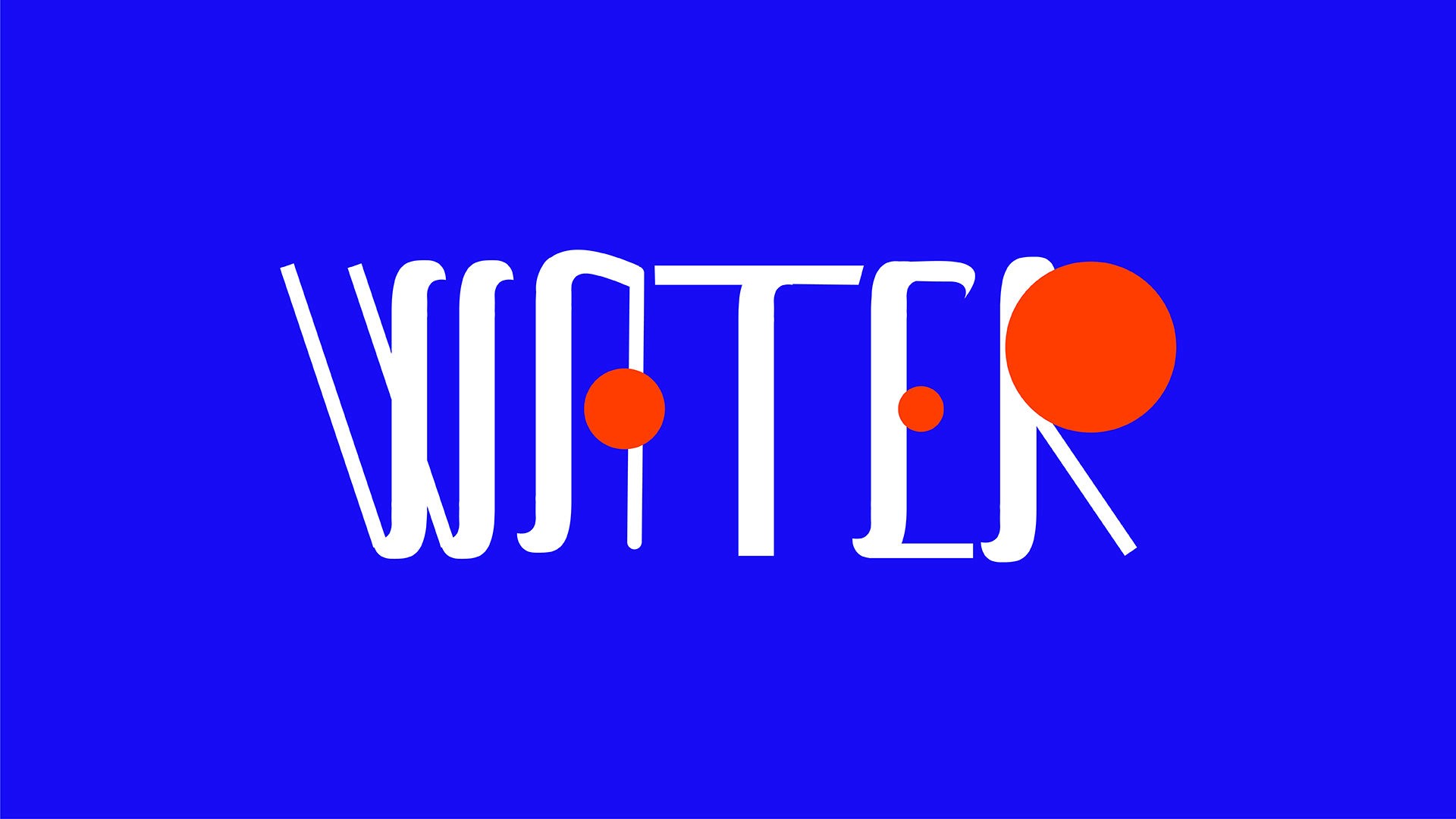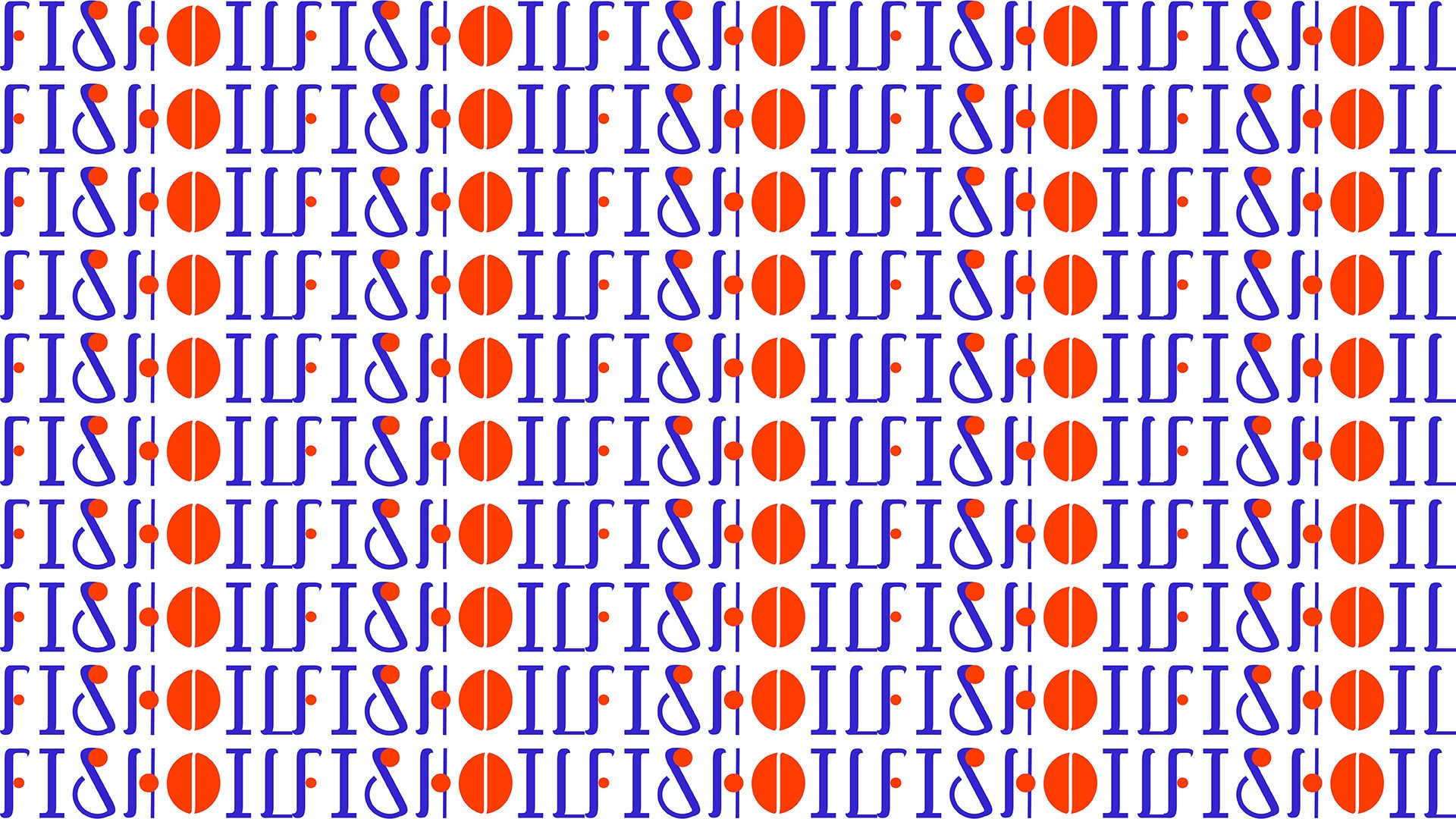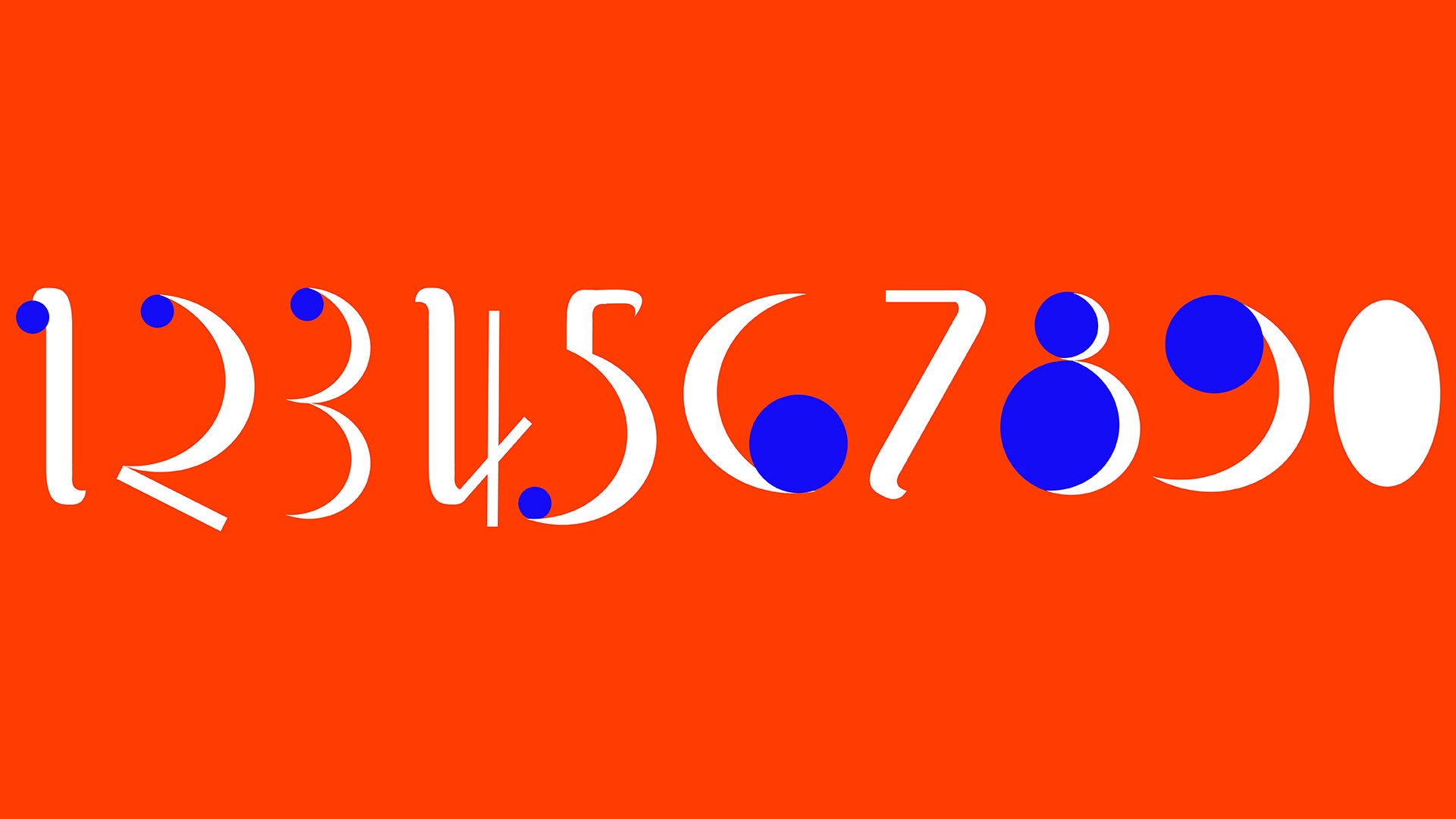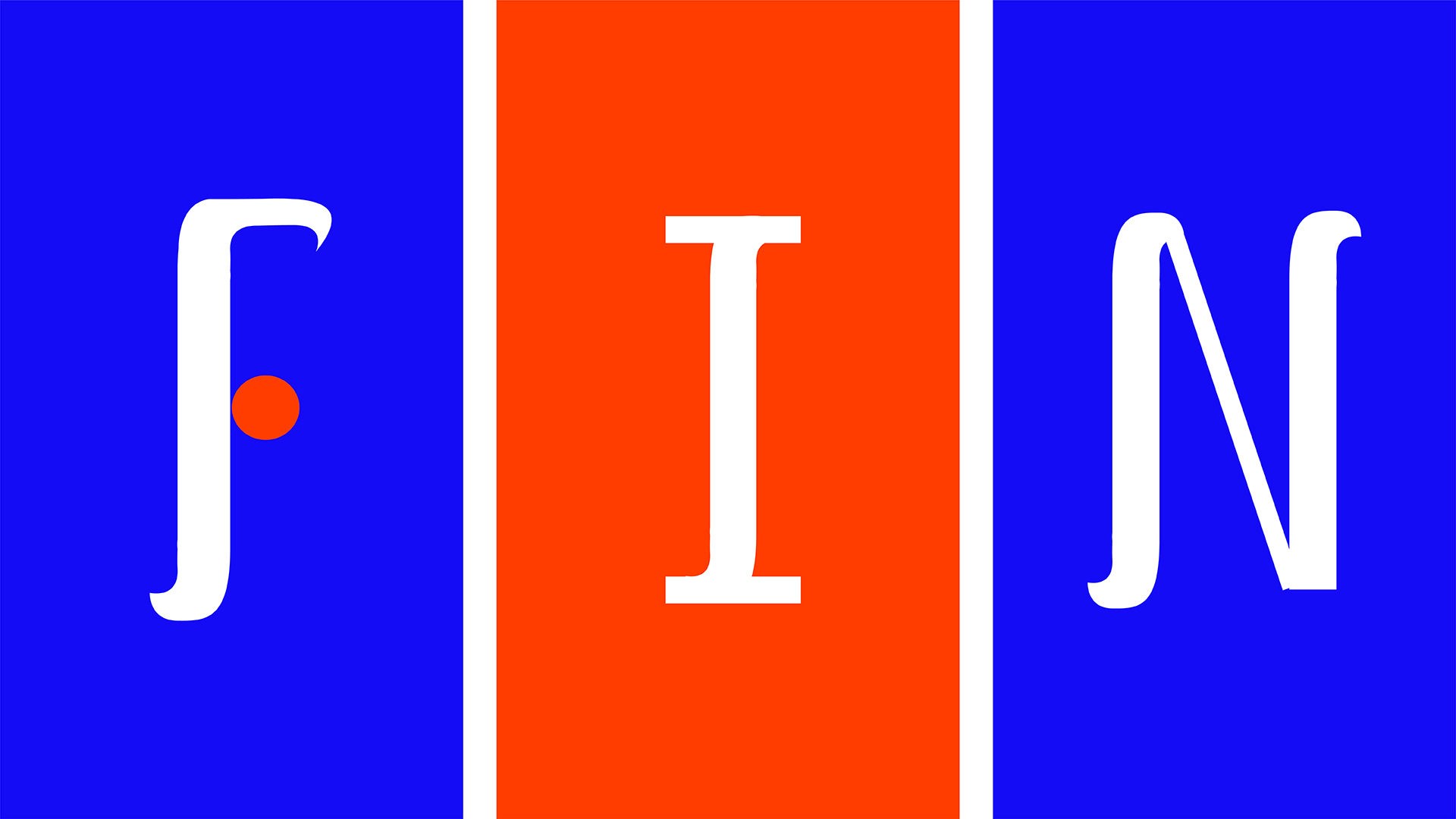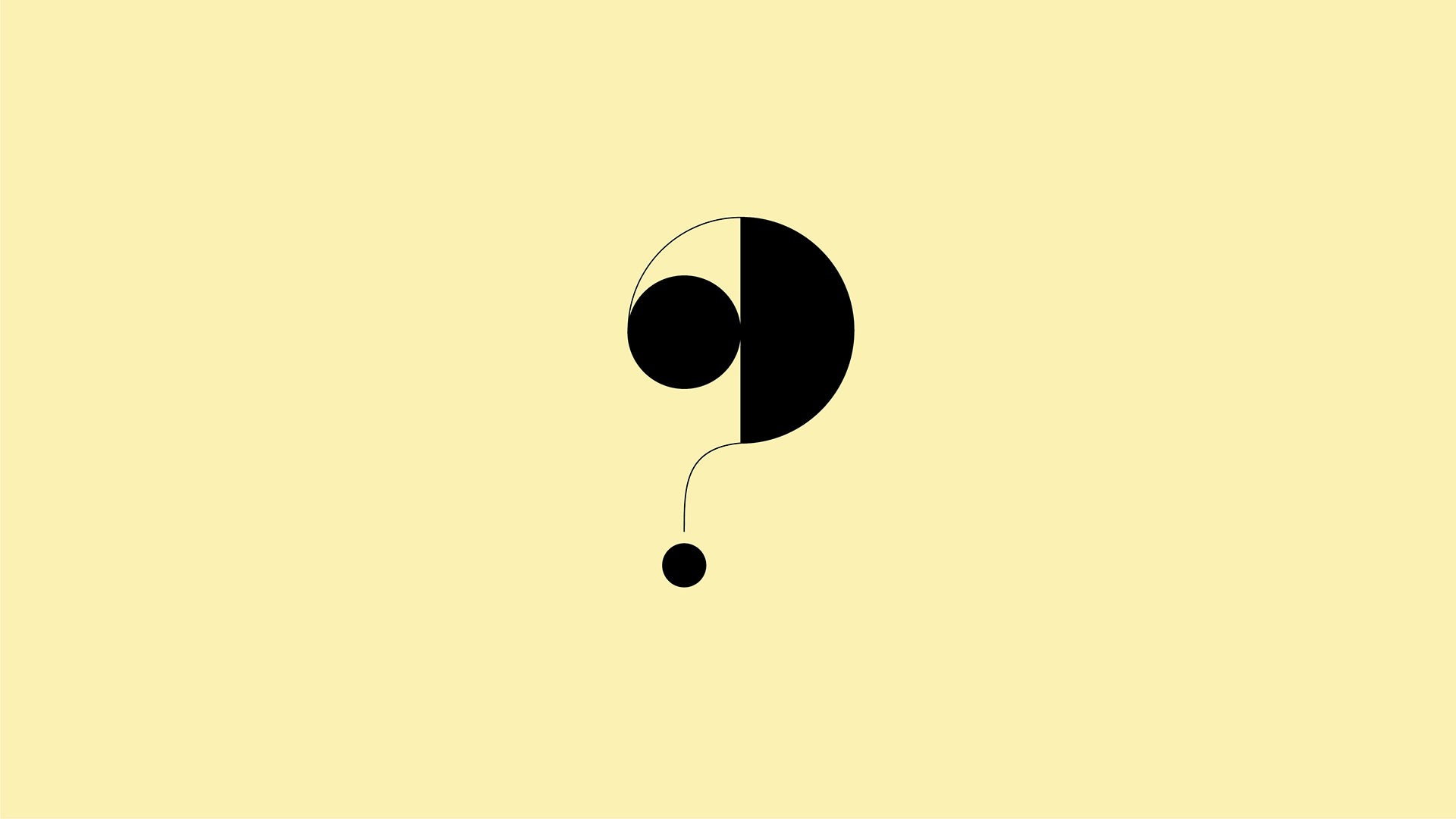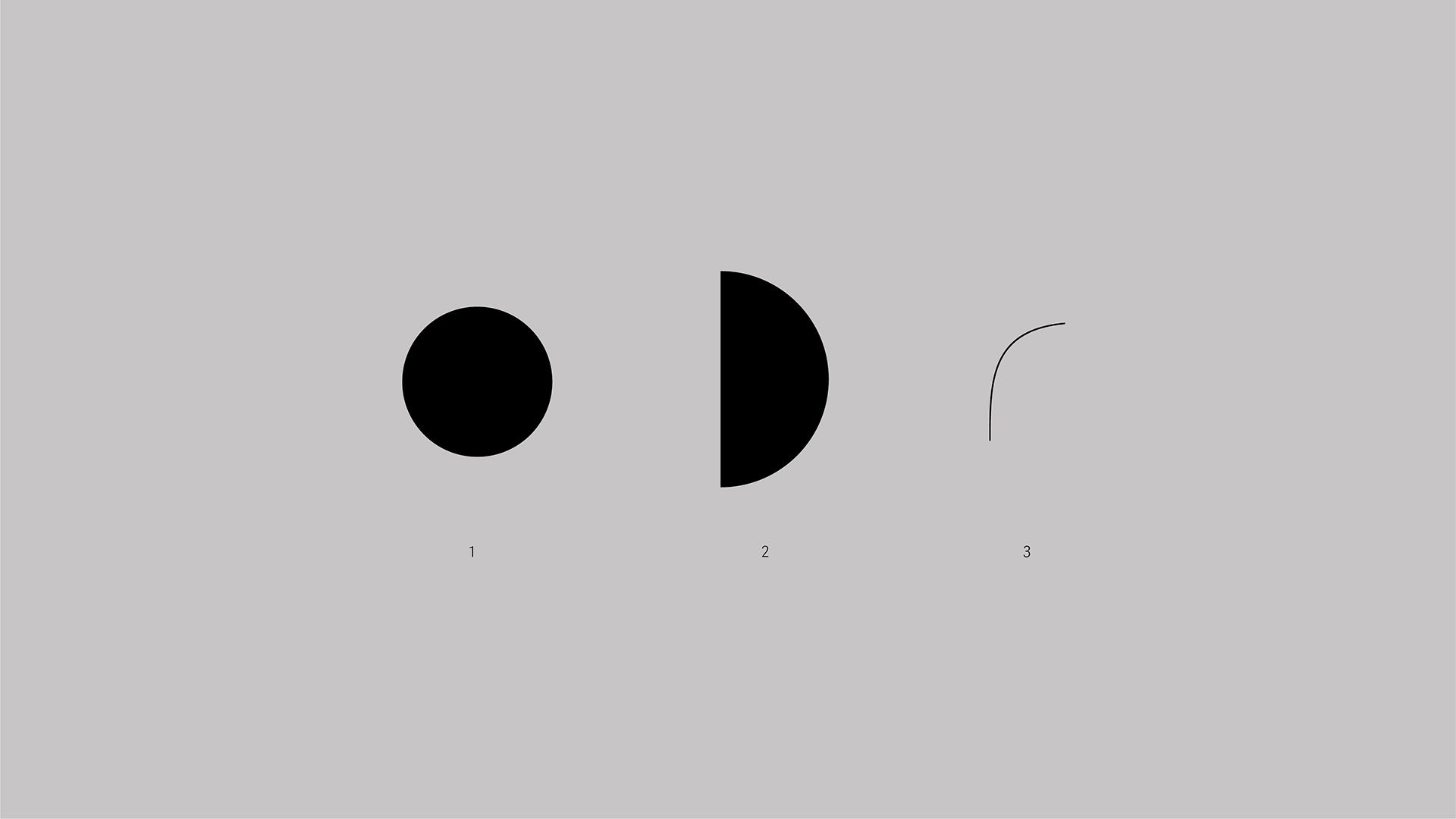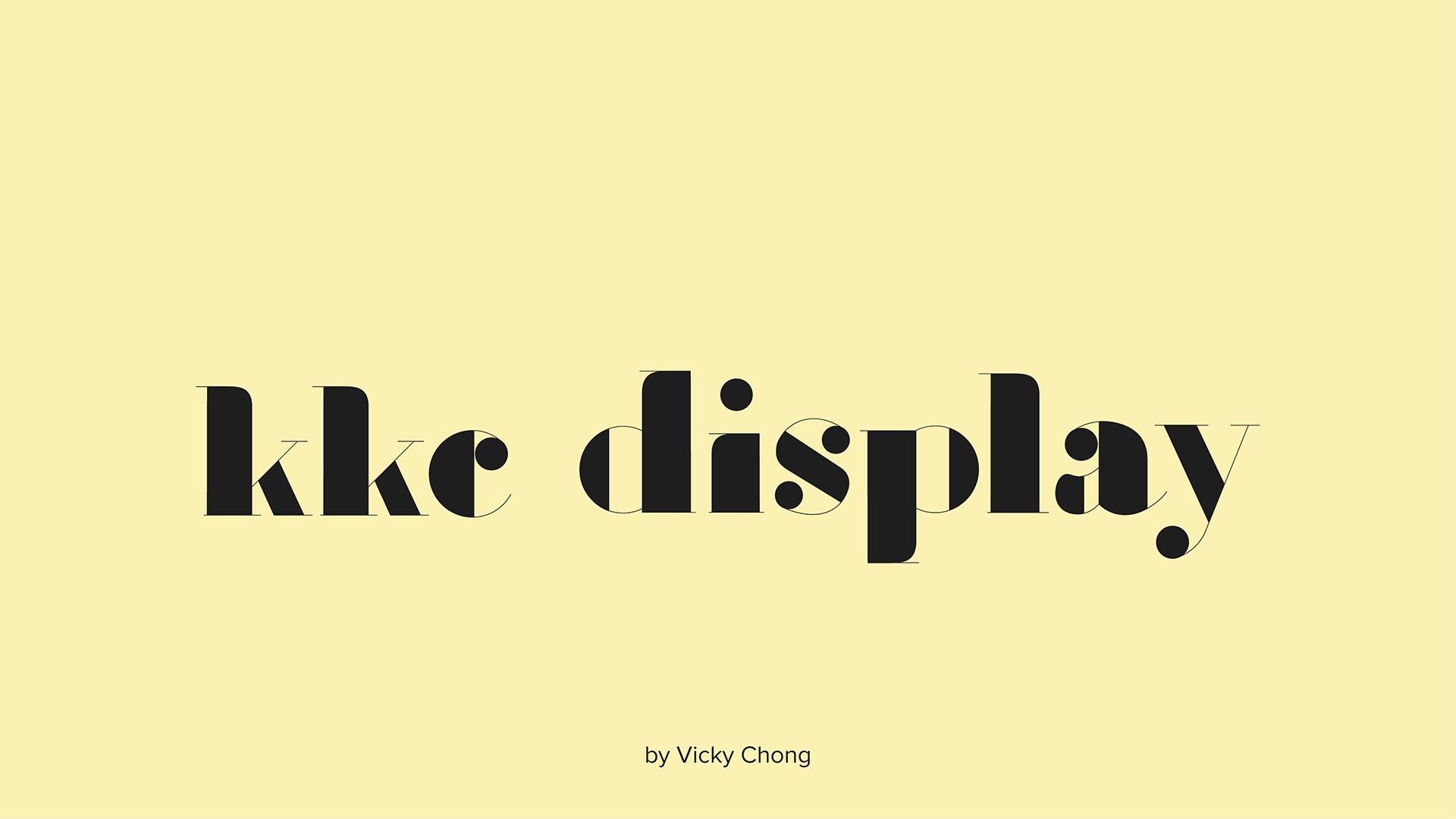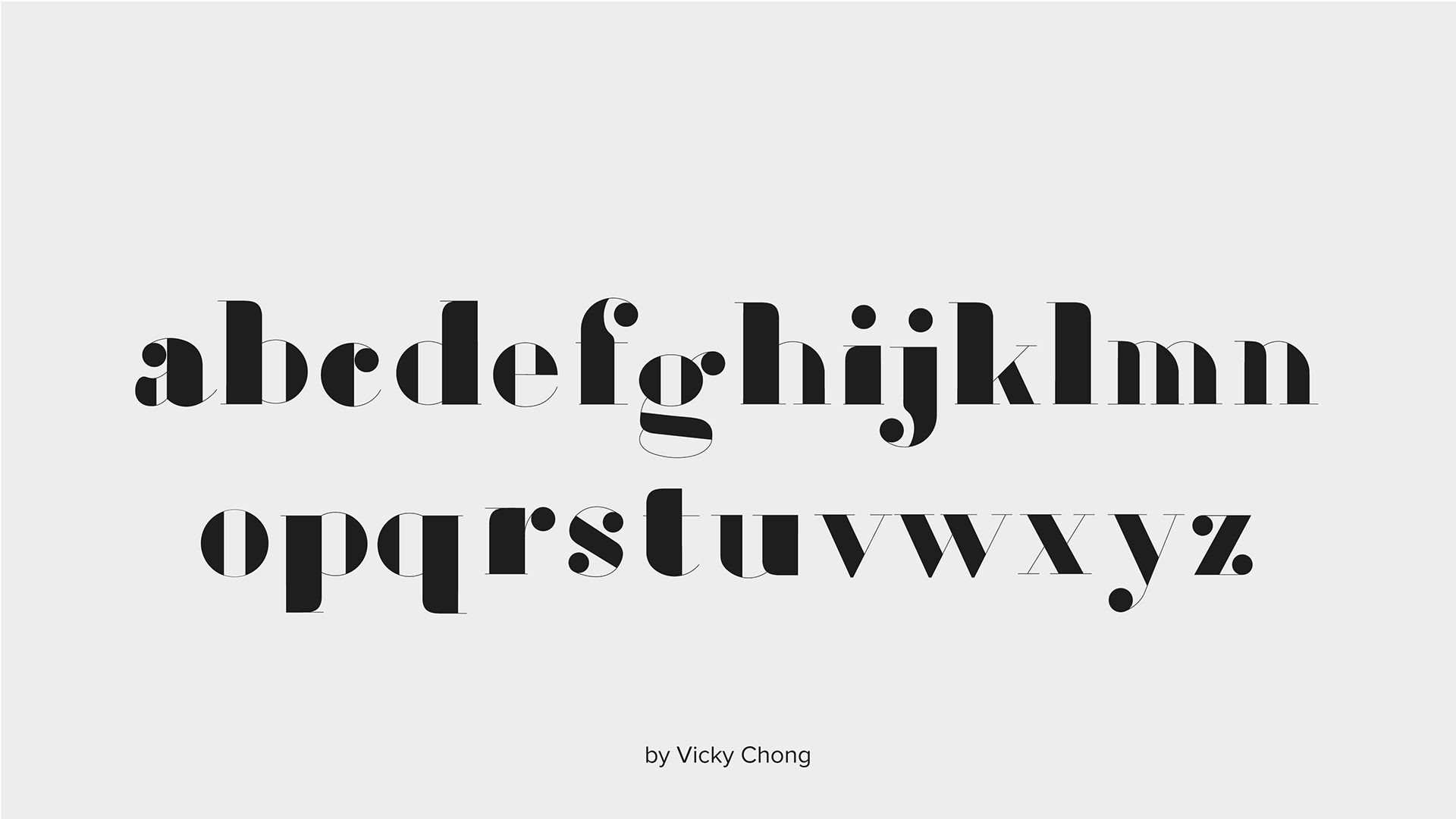
Ladislav Sutnar-Inspired Typefaces Part 3
1. Sukanya Bose focused her alphabet on Sutnar's preference for geometry combined with sensuous shapes. Here is a striking balance between flow and grid.
2. Vicky Chong took her inspiration from his opus volume Visual Design in Action and devised KKC Display, which with its thicks and thins, bears a family resemblance to Bodoni.
3. Harbor Bickmore started with a Sutnar question mark and then followed his geometry to an apt conclusion. He used Sutnar's sense of elegant form to create this typeface that can be both quiet and loud.
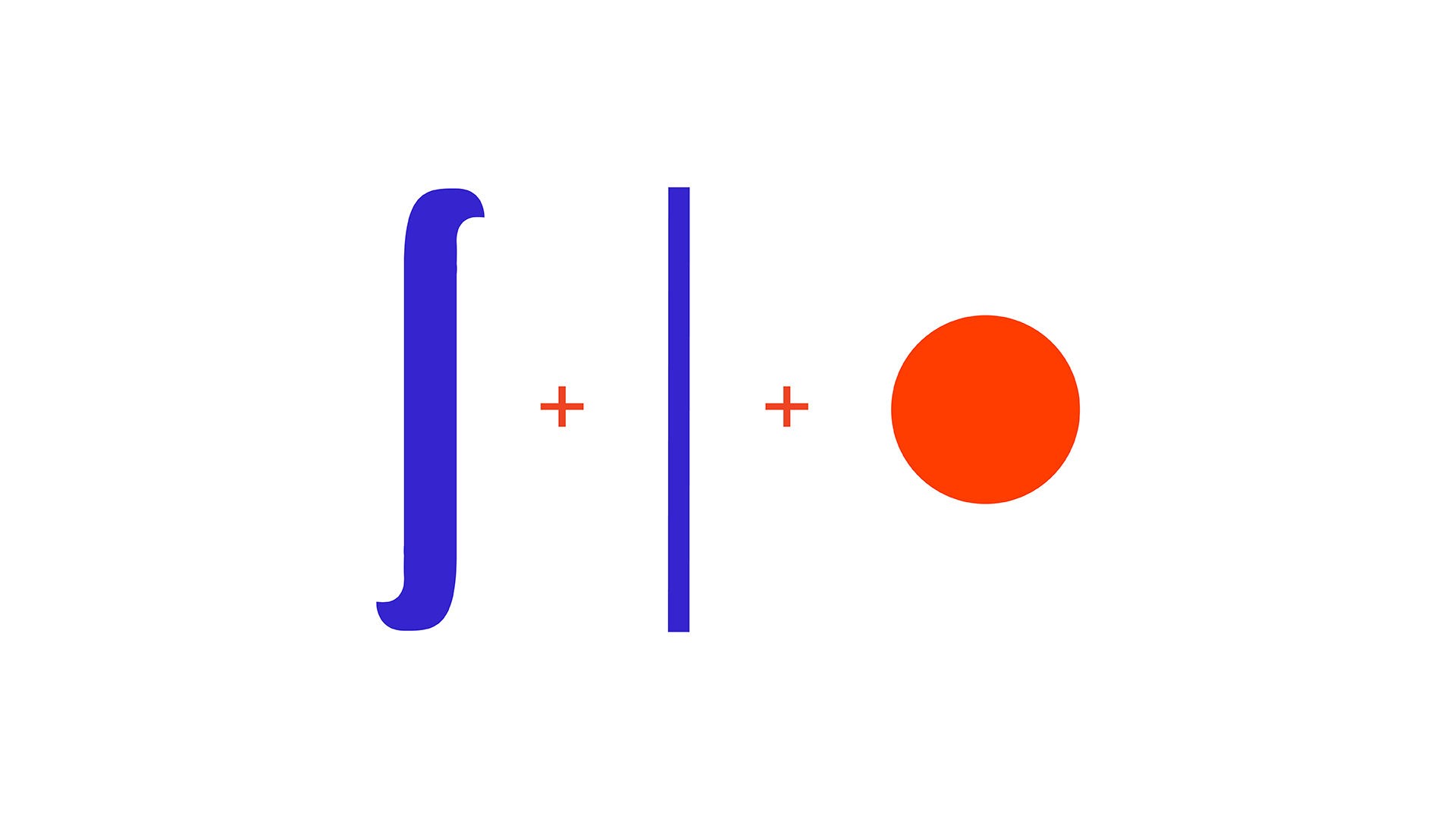
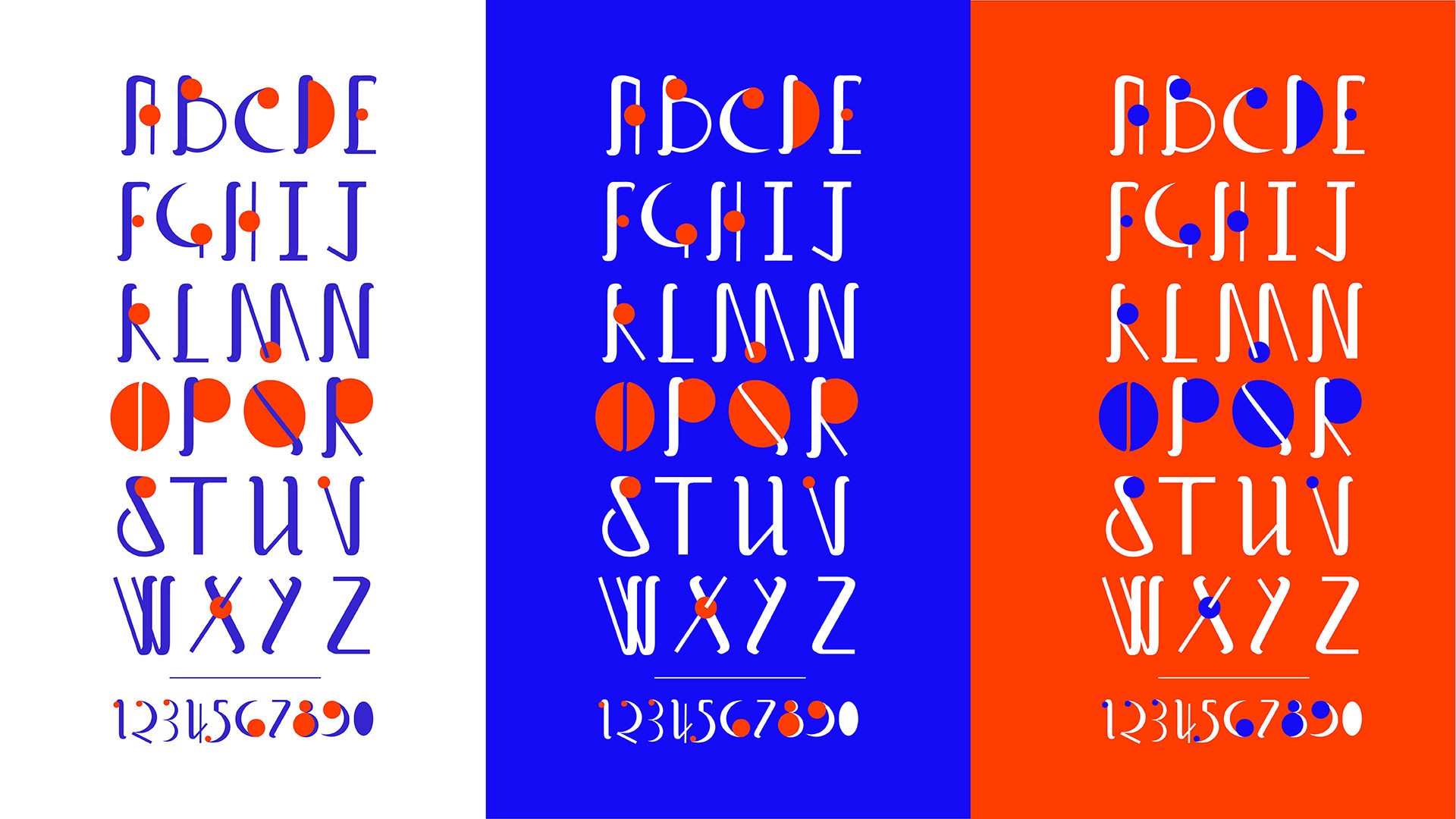    custom type design in bright blue, orange and white
custom type design in bright blue, orange and white
custom numericals in bright blue, orange and white
"FIN" custom type design in bright blue, orange and white
black question mark on pastel yellow background
circle, semi circle and a curved line
custom serif typeface in black and pastel yellow background
custom serif typeface in black and white
z letter with background image of indoor arches
custom serif typeface in black and white
question mark
black type
type detail
black alphabet design
numerical design, 0-9
type detail
drama queen display